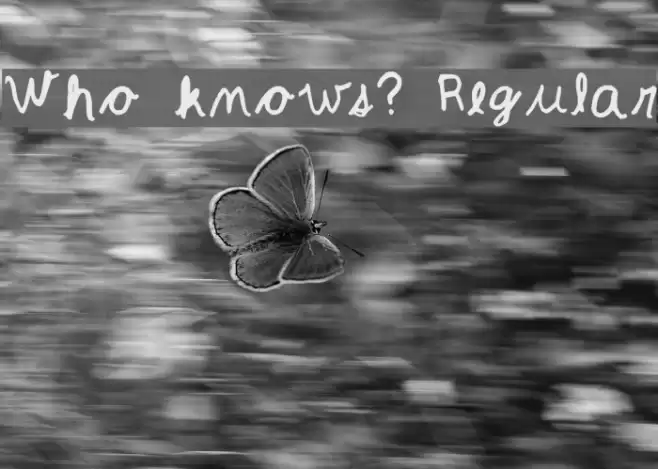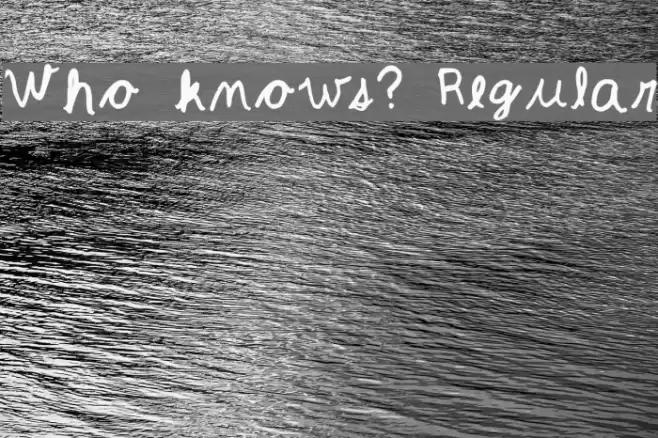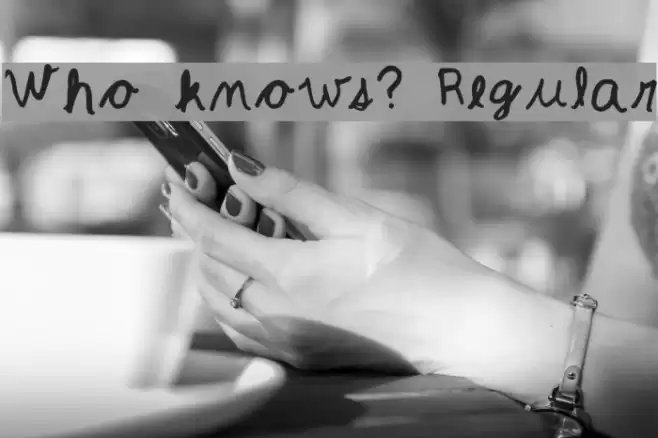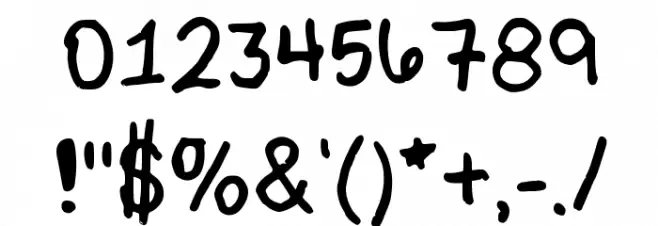
Who knows? Regular Font
Who knows? Regular Description
This font features a playful and casual handwritten style, with a fluid and dynamic appearance. The letters are slightly slanted, giving it an informal and approachable feel. The strokes vary in thickness, adding a sense of movement and energy. The uppercase and lowercase letters are distinct yet harmonize well together, maintaining readability while offering a unique character. The numerals and special characters are consistent with the overall style, ensuring a cohesive look across all text elements.
A playful, handwritten font with dynamic strokes and a casual feel from Uncategorized fonts.
- Proposed Projects: Ideal for greeting cards, personal branding, casual invitations, and creative projects that require a friendly and informal touch.
- Overall Style: Casual
- Use Case: Logos, Invitations, Greeting Cards